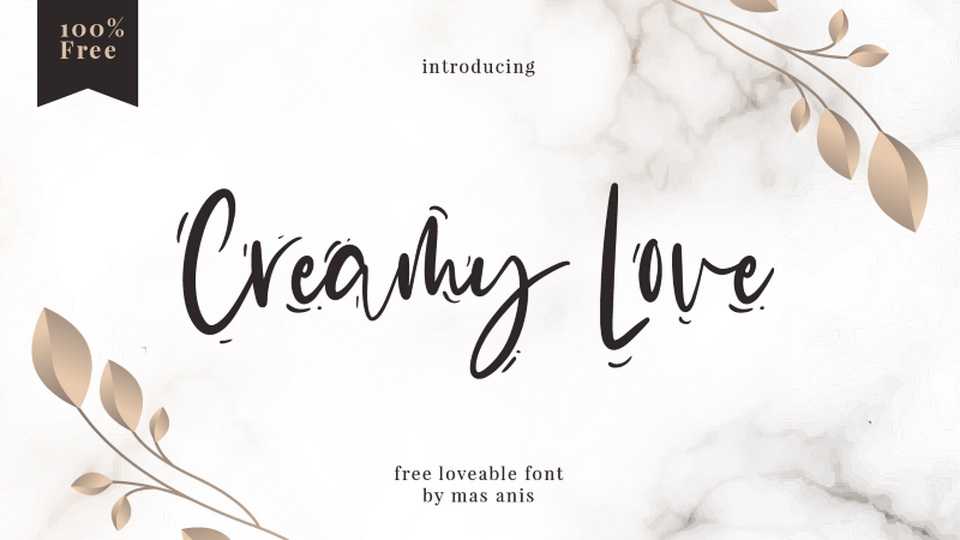
Download Creamy Love font, a beautiful handwritten script with a unique look. Creamy Love font perfectly fits for wedding, quote, greeting cards, bussiness card, event, invitation, logo, blogs, crafts, branding, posters, and more!
Designer: Mas Anis Studio